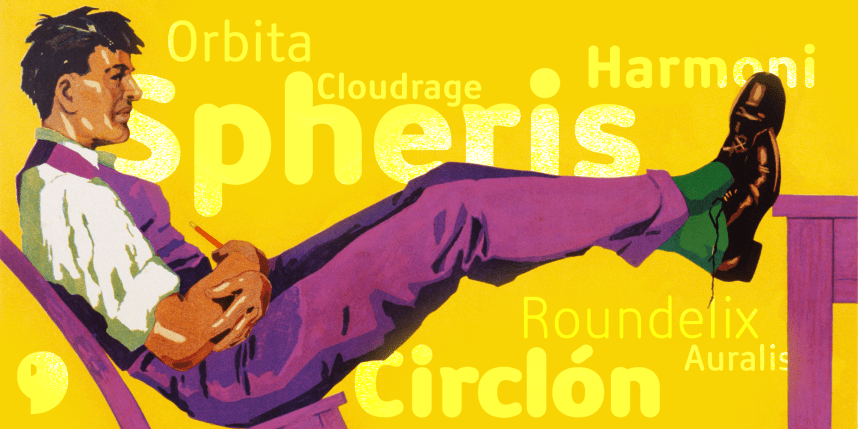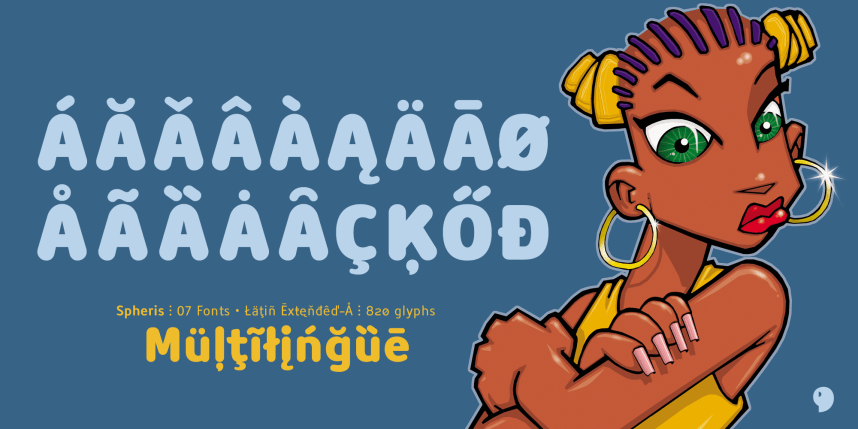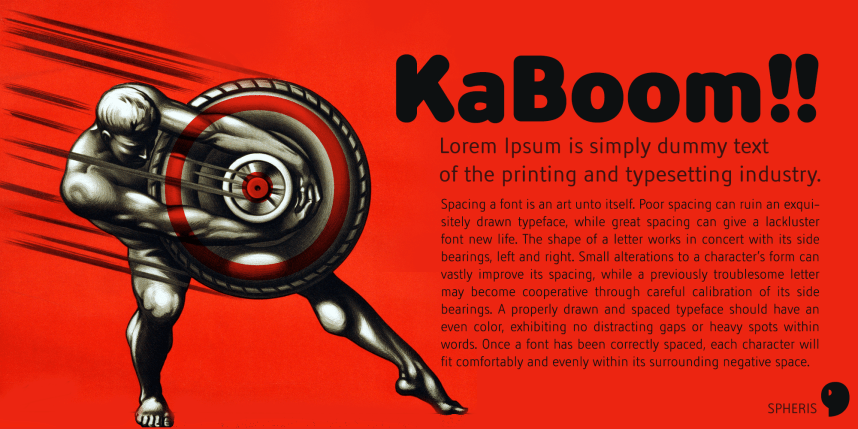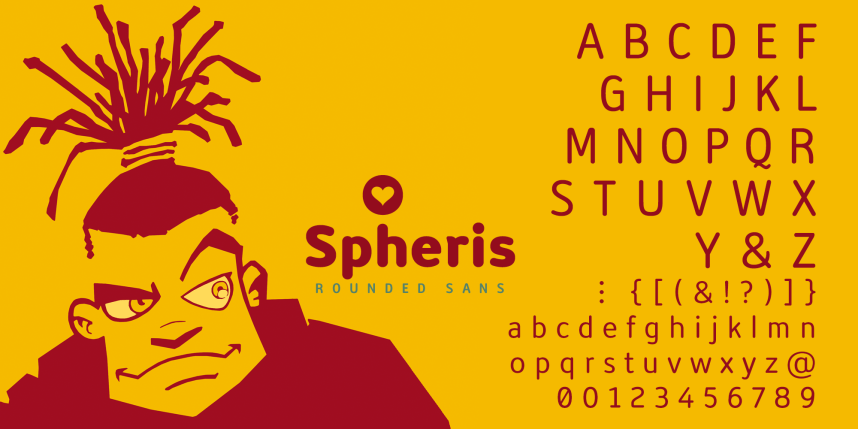
Spheris Round Font is born from a delightful contradiction: a geometric sans serif with rounded corners that seem to breathe. Spheris is a rounded, geometric sans serif family. Its curves are not a decorative gesture: they are a structural decision. Each softened terminal, each carefully measured arc, is there to create a fluid, almost tactile reading experience. It’s a typeface that doesn’t impose itself: it accompanies you.
With seven weights ranging from the ethereal Light to the gravitational Black, Spheris is a complete typographic universe.
Spheris is alive. Thanks to its advanced OpenType features, it adapts to both technical and expressive needs.
Spheris doesn’t intend to replace your favorite sans serif. It wants to coexist with it… and elevate what you do.